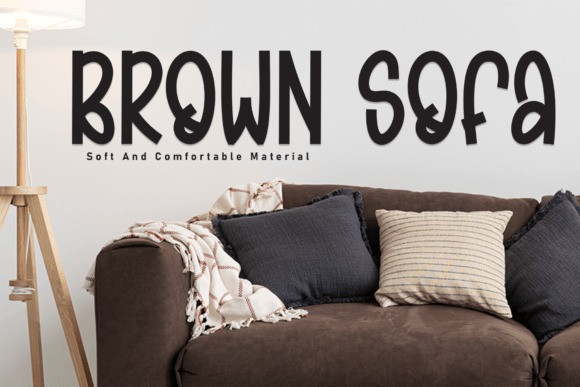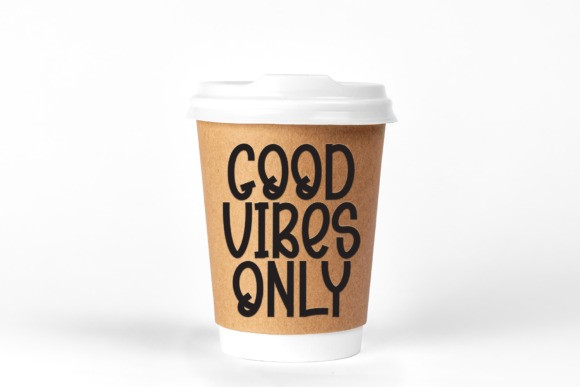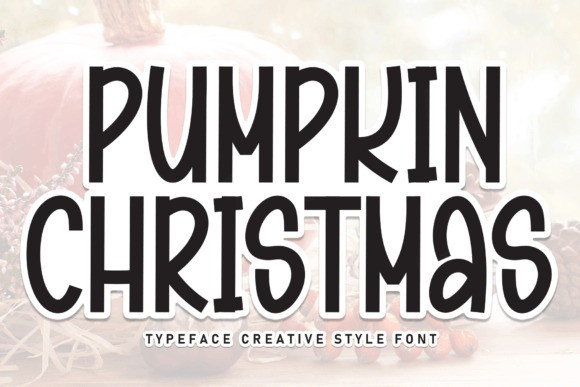
Pumpkin Christmas Font
Pumpkin Christmas Font, a festive display font that captures the holiday spirit with its playful and cheerful design. This font brings a touch of warmth and whimsy to your seasonal projects, making it perfect for holiday cards, invitations, and festive displays. Embrace the joyful essence of Christmas with Pumpkin Christmas – where festive charm meets creative typography.